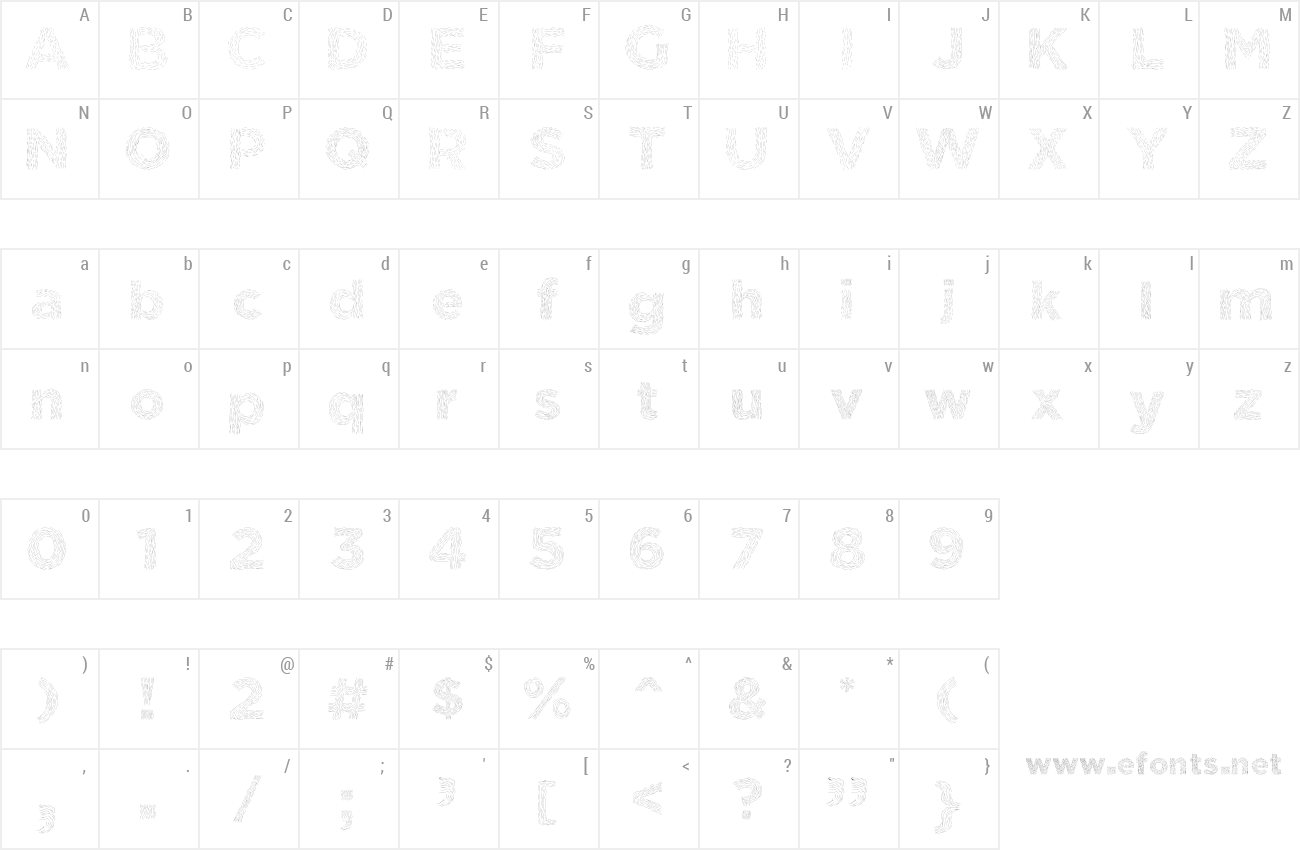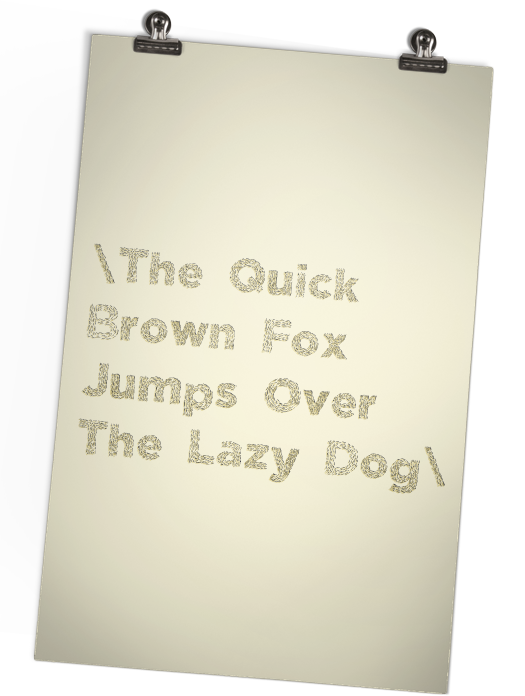
Preview and download Elmars Hairy Typeface Font. Created by Toro Elmar in Fancy Decorative styles with Donationware license.
| Font name: | Elmars Hairy Typeface |
| Author: | Toro Elmar |
| Note by Toro Elmar | |
| As a bearded person, hair is something that really give me a trademark as a human being. so yes, this font is much like an apreciation to the hair that live in my body. |